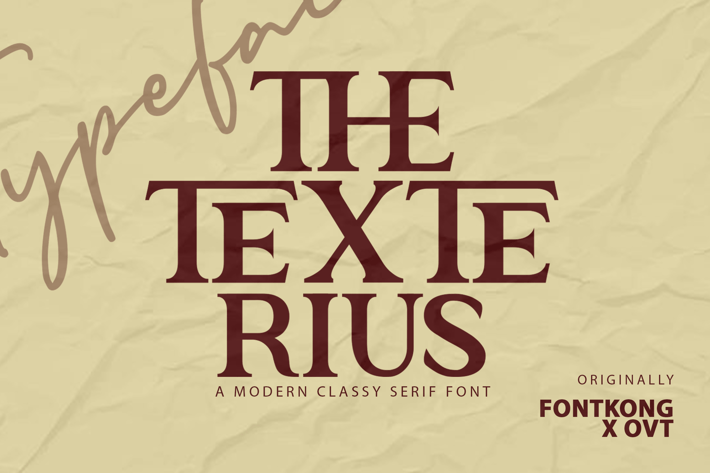
The Texterius - Modern Classy Serif Font
Introducing "The Texterius," a modern serif font that seamlessly combines elegance and modernity. Perfect for designers seeking a refined yet contemporary typeface, The Texterius features sleek lines and sophisticated serifs that elevate any project. Whether you're working on high-end branding, editorial content, or elegant invitations, this font provides a touch of class and clarity.
The Texterius is meticulously crafted for readability and versatility, offering a robust character set that includes multiple weights, italics, numerals, punctuation, and extensive language support. Its balanced structure ensures exceptional performance across various mediums, from print to digital.
Enhance your designs with the timeless charm of The Texterius. Ideal for logos, magazines, websites, and more, this font is your go-to choice for creating a lasting impression with a sophisticated edge.